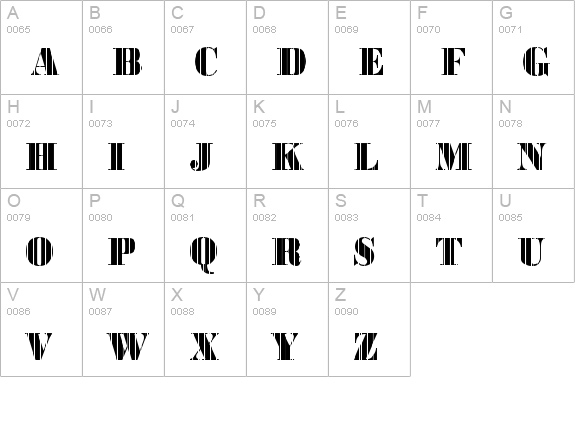
BodoniVjet-Regular is the standard, neutral variant in the BodoniVjet typeface family \xE2\x80\x94 well suited to general body text, paragraphs, and standard typographic work.
BodoniVjet-Regular font exudes elegance and sophistication with its timeless design. This font features sharp serifs and clean lines that make it perfect for both formal and modern designs. The contrast between thick and thin strokes adds a touch of drama and flair to any project. BodoniVjet-Regular font is versatile and can be used for a variety of purposes such as branding, packaging, editorial design, and more. The best part is that BodoniVjet-Regular font is completely free to download at FontsMarket.com. This means you can elevate your designs without breaking the bank. Whether you are a designer looking to add a touch of class to your work or a business owner seeking a professional font for your marketing materials, BodoniVjet-Regular font is the perfect choice. Download it today and start creating stunning visuals that will leave a lasting impression.